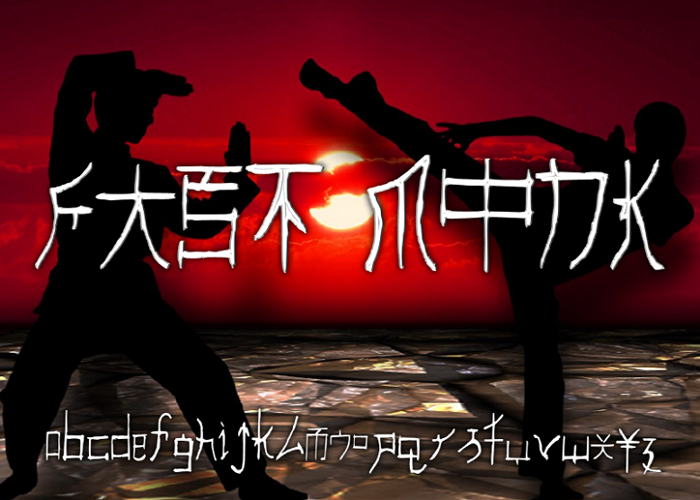
Fast Monk Font
Fast Monk was inspired by Chinese characters. Add your own touch to it by utilising Text Effects in WordArt inside a Microsoft Word document. If you're interested in using it for commercial purposes, it's only 99c at https://www.creativefabrica.com/designer/shelley-2 Thank you.